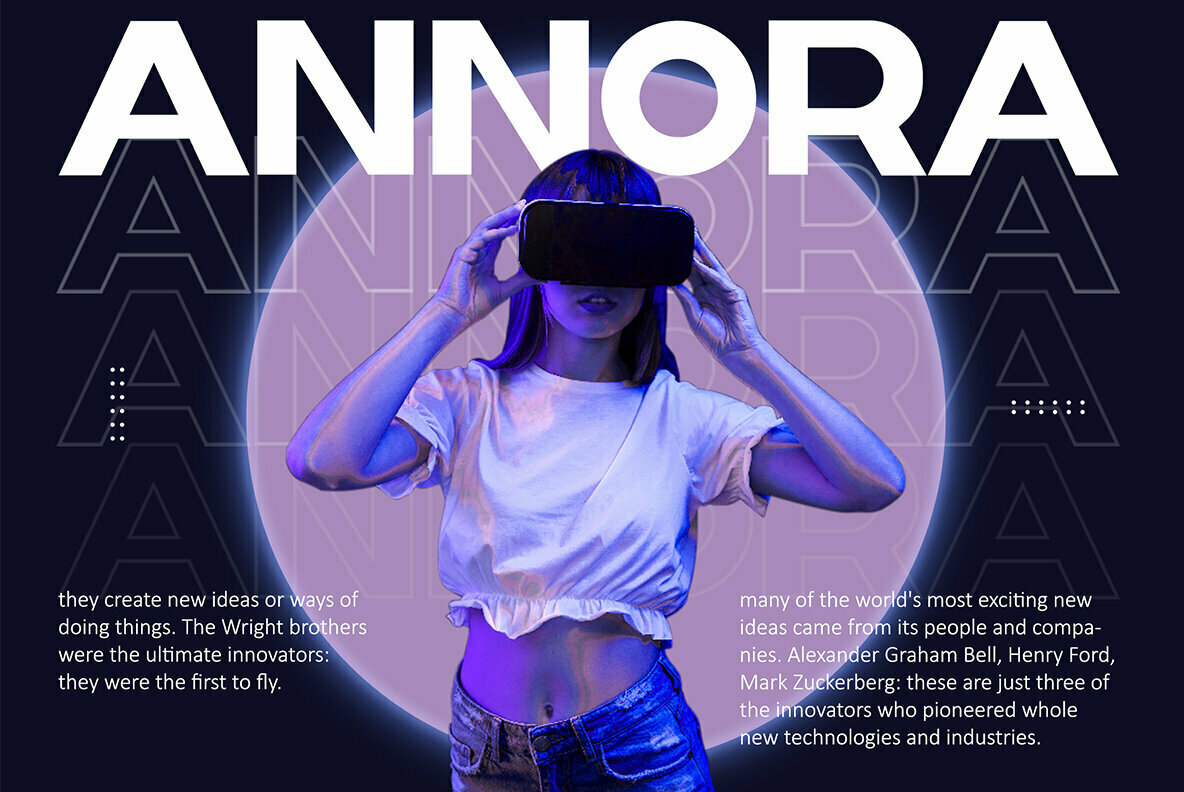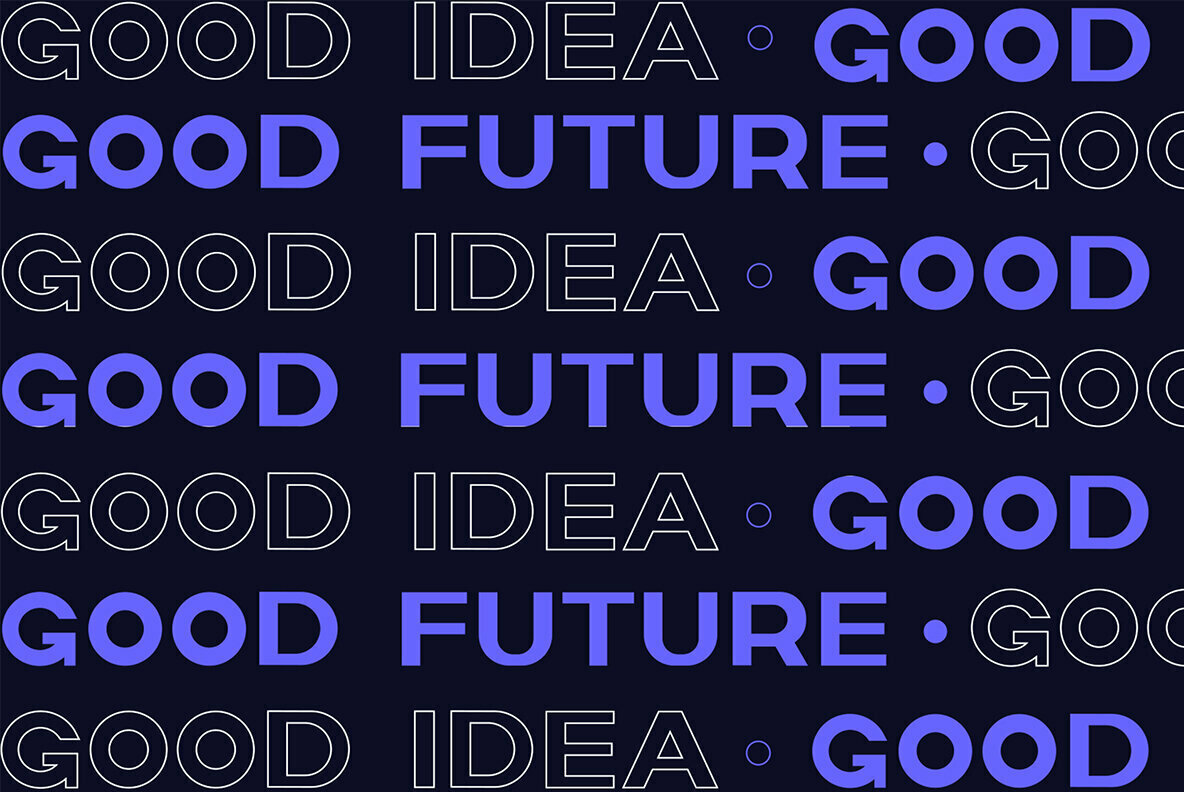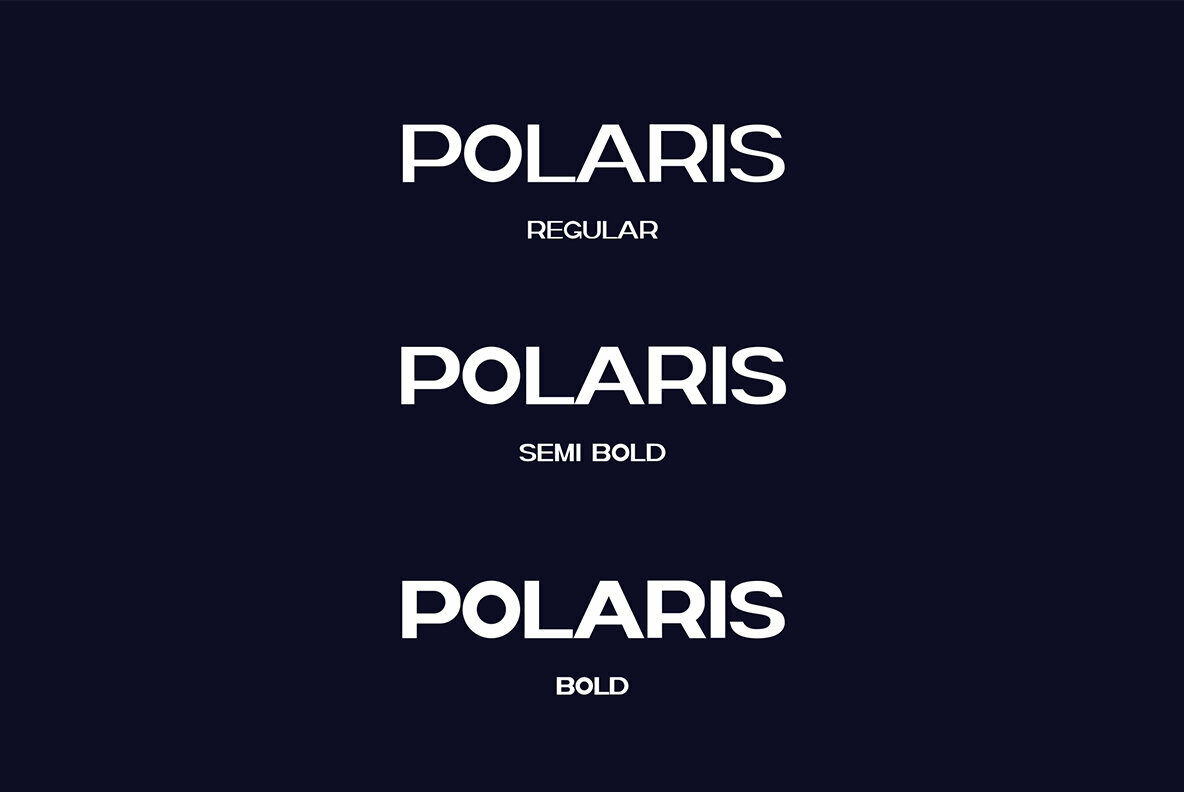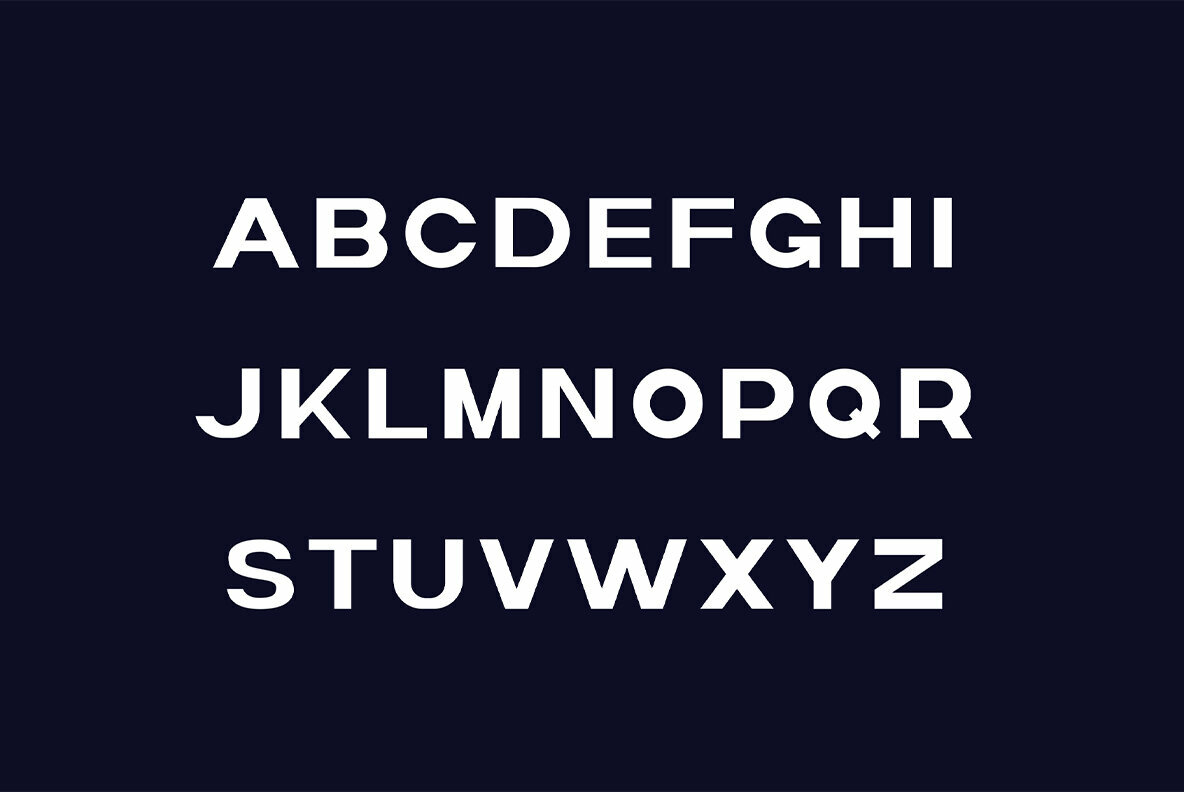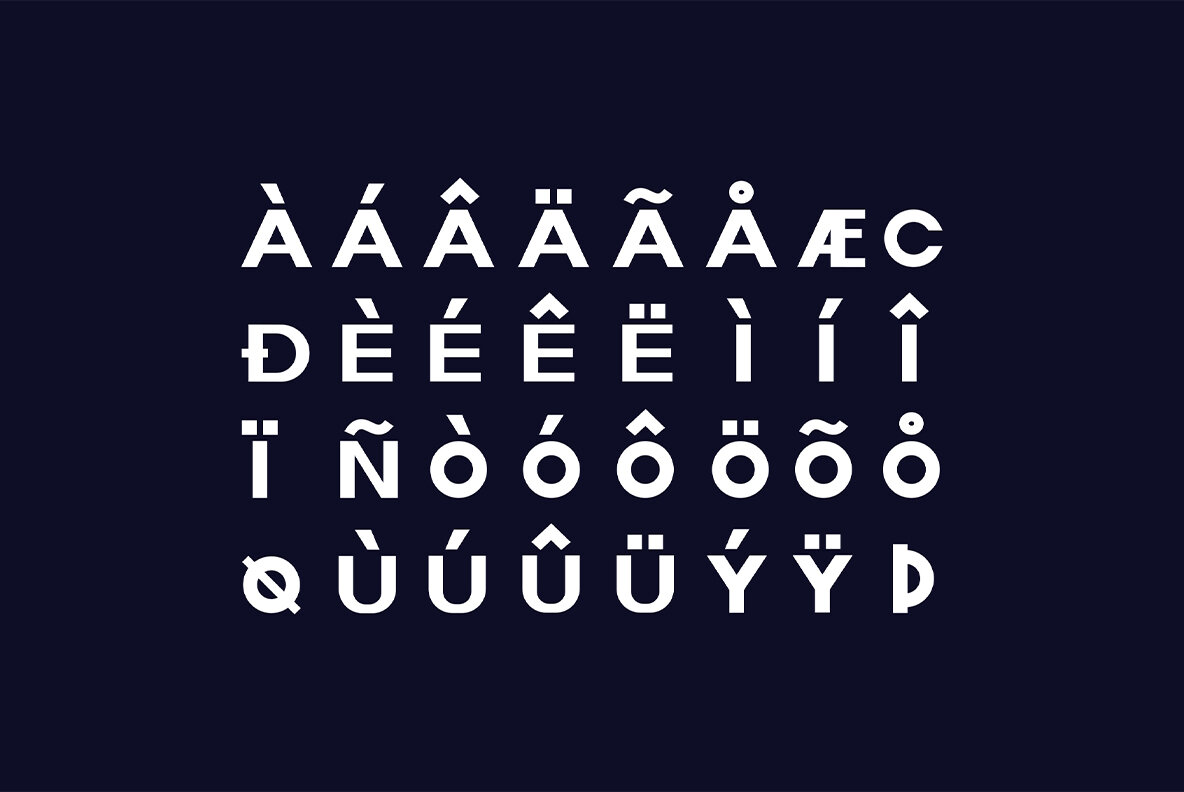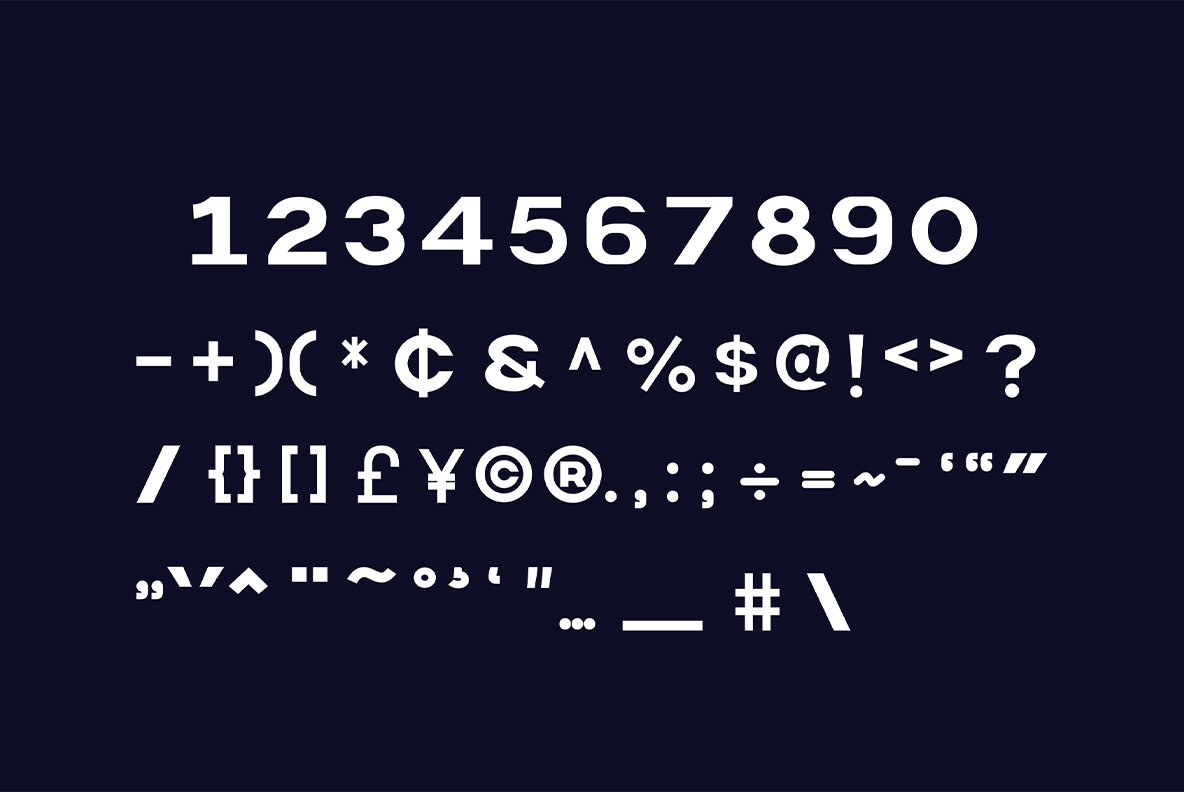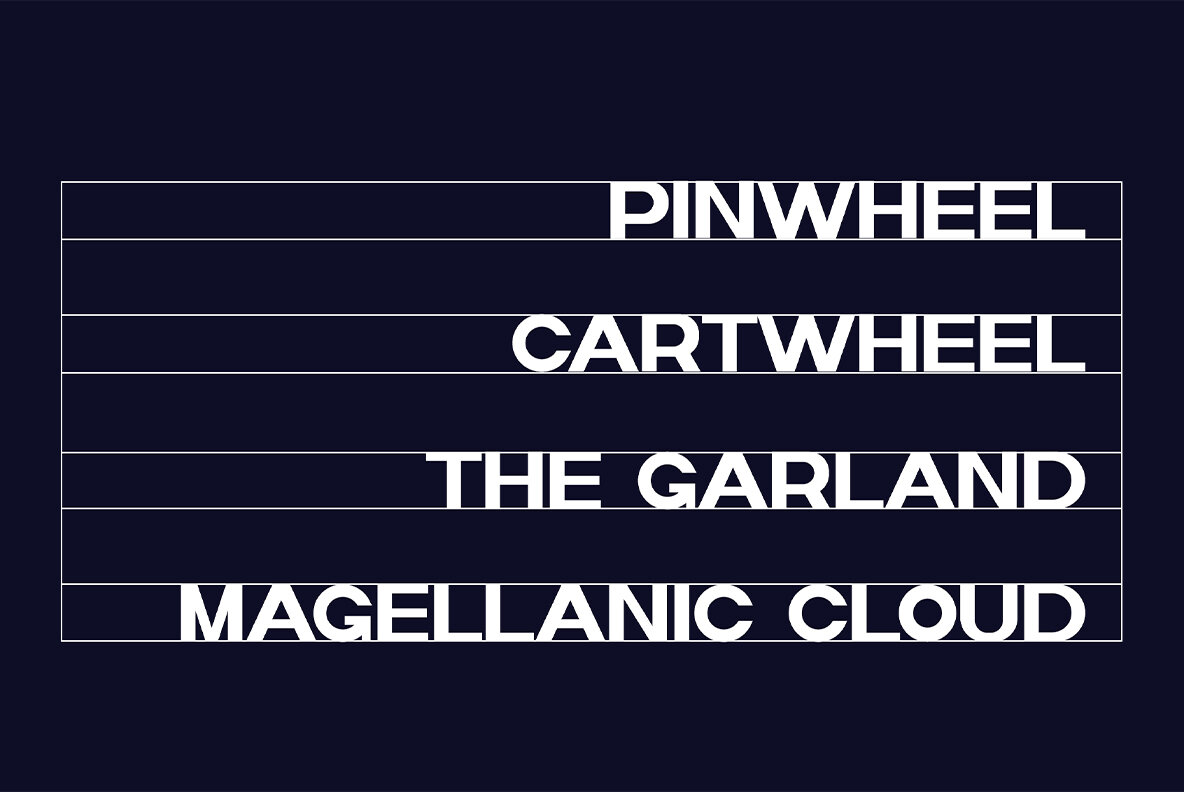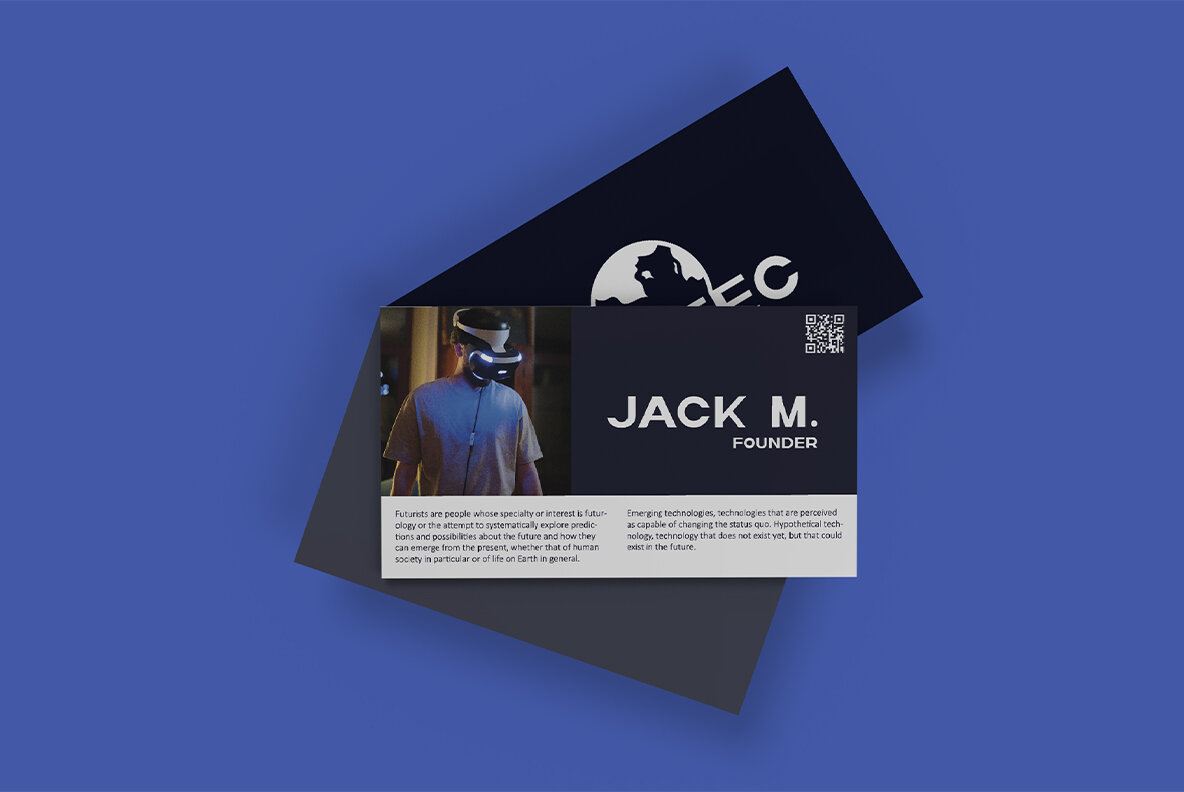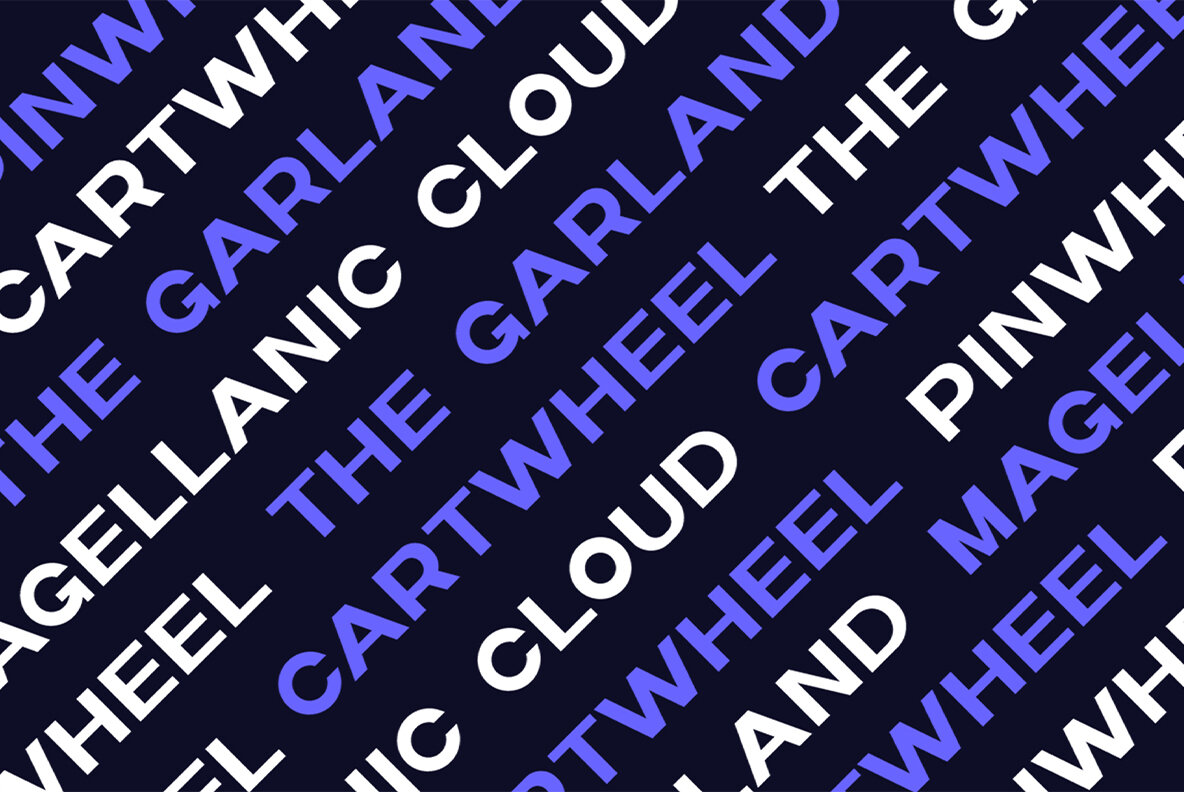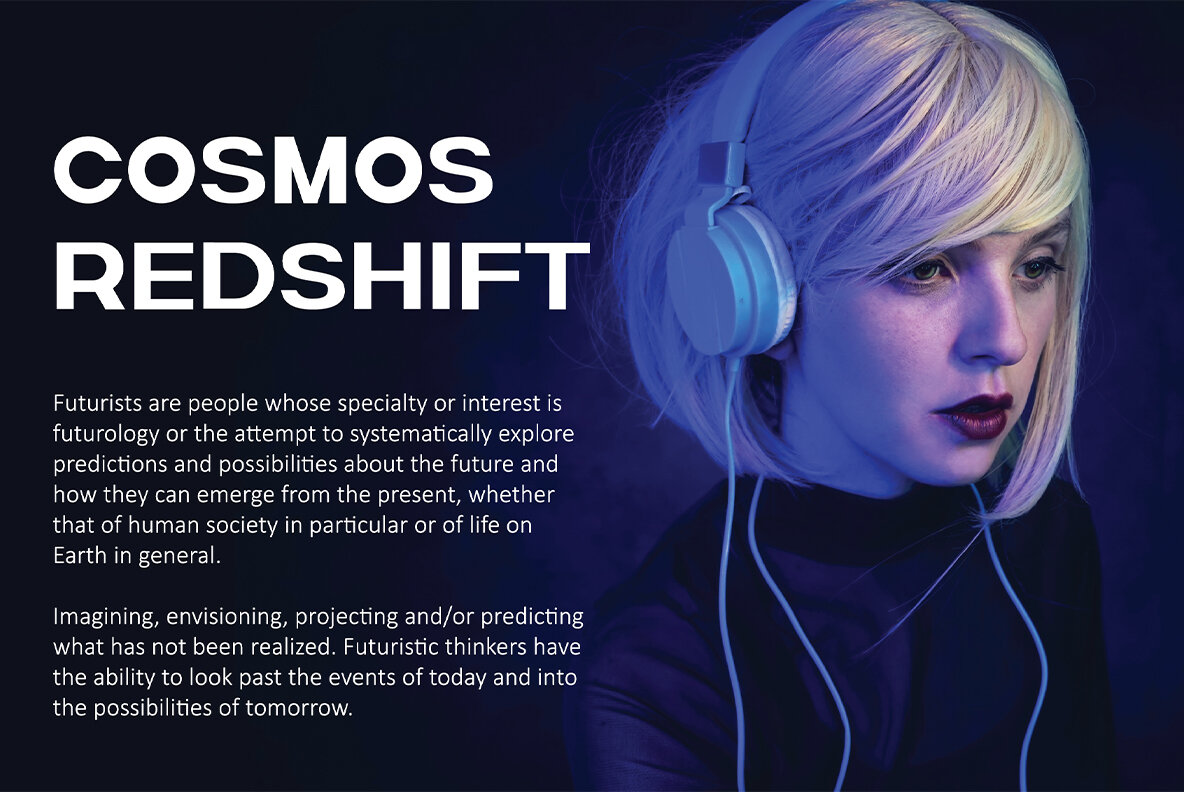
Polaris Font
Designed with a futuristic edge, Polaris stands as a robust and adaptable sans serif font. Its bold character makes it suitable for a wide range of applications, from branding projects to magazine headers. Embrace Polaris for its capability to blend seamlessly in both large and small configurations, adding a touch of modernity to your work.Polaris: Futuristic Sans Serif for Bold Design